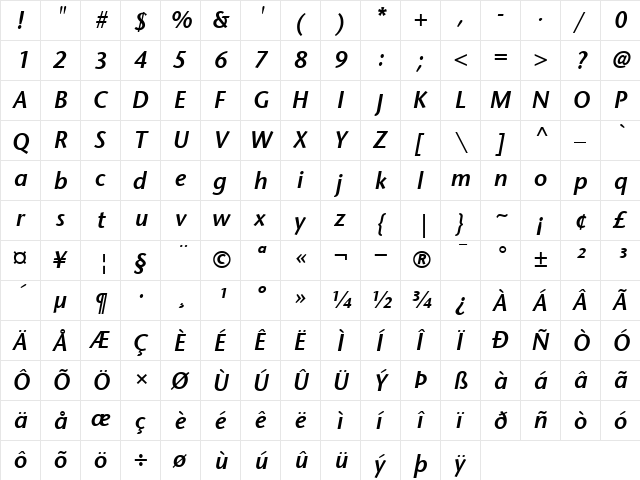
StoneSans SemiboldItalic
Design Context for StoneSans Typeface
StoneSans takes a measured approach to typography — its balanced proportions and neutral character make it a reliable workhorse for both digital and print work. The dynamic lean of this cut emphasises speed and emphasis in any layout. Its bold stroke weight gives it real presence on the page.
Pro Tip: Use StoneSans for emphasis, pull quotes, and subheadings where its slanted energy can add rhythm to the layout.